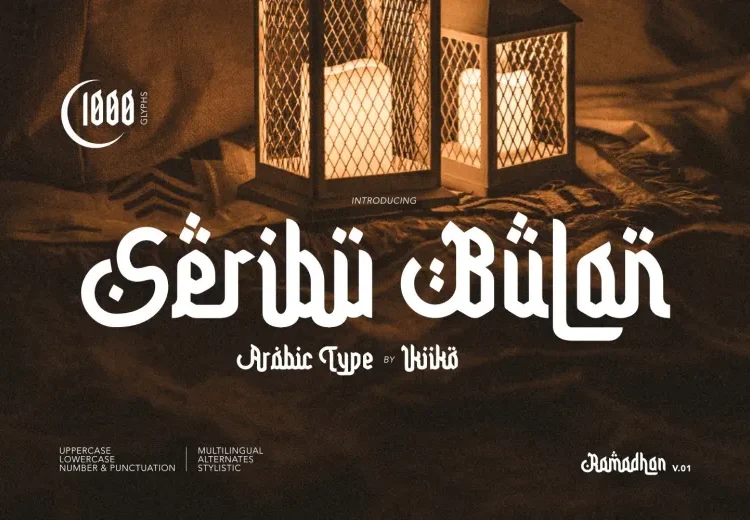
Seribu Bulan Font
Seribu Bulan Arabic Type, designed by ikiiko, is a tribute to the mystical and revered night of Lailatul Qadr during Ramadan. The name “Seribu Bulan” reflects the significance of a thousand nights, with the typeface capturing a unique blend of Arabic influences and contemporary design.
Key Features of Seribu Bulan Arabic Type:
• Diverse Styles: The font offers a range of styles, from hooked letters to traditional Arabic characters, providing flexibility to achieve various aesthetic effects.
• Arabic Influence: With its slab serifs and distinctive design, Seribu Bulan pays homage to Arabic calligraphy while integrating modern typographic elements.
• Versatile Applications: Ideal for a wide array of uses, including logos, magazine layouts, header designs for food and beverage packaging, posters, and headlines. Its Middle Eastern-inspired design also adds a unique edge to any image or design.